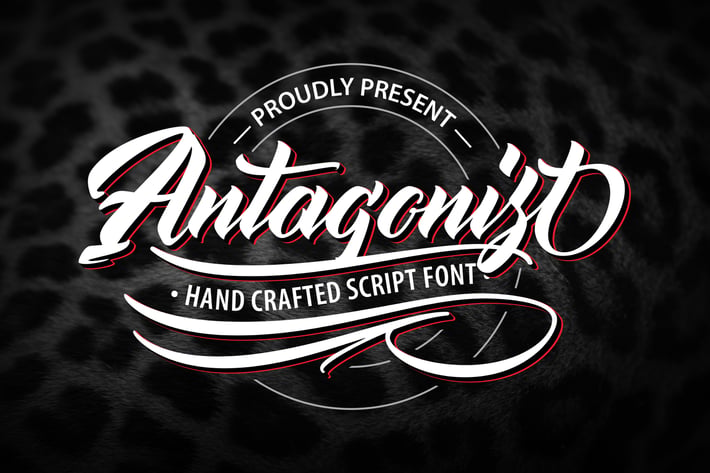
Antagonis | Handcrafted Script Font
Antagonis | Handcrafted Script Font with a calligraphy style, So beautiful on invitation like greeting cards, branding materials, business cards, quotes, posters, and more!
Hundred of glyphs